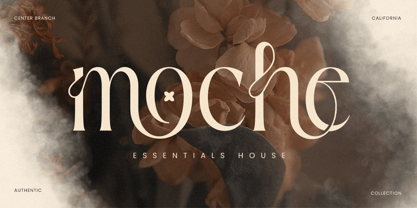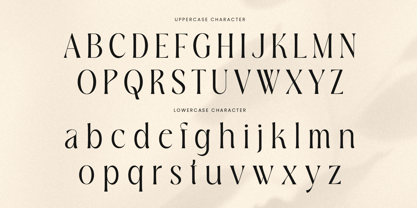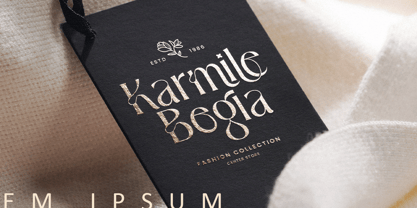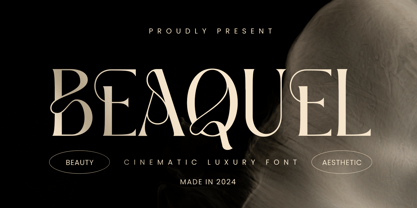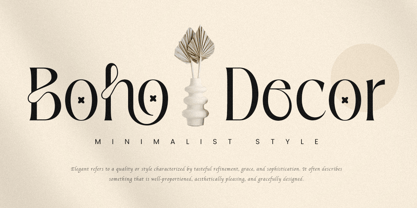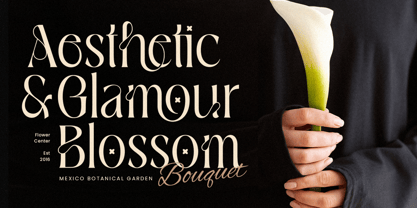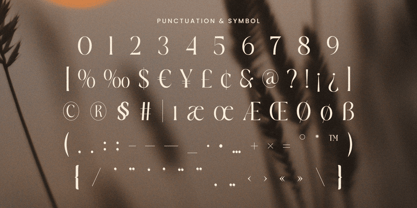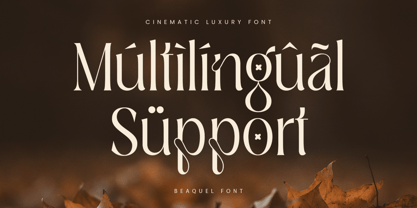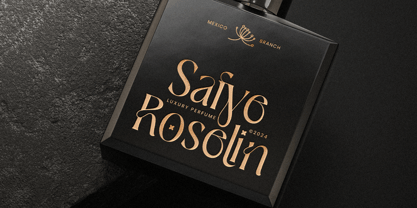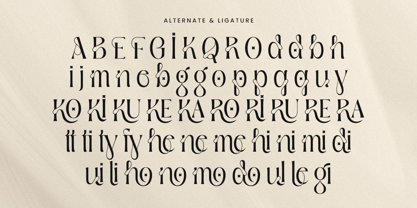
Beaquel
by Sensatype Studio
The Beaquel Font Family was designed by Zamroni Hamzah and published by Sensatype Studio. Beaquel contains 2 styles and family package options. More about this family
Beaquel - Cinematic Luxury Font
Beaquel is a cinematic luxury font designed to bring sophistication and elegance to your designs. Perfectly suited for high-end branding, editorial layouts, and upscale product packaging, Beaquel's refined letterforms exude timeless style. Inspired by classic cinematic visuals and premium aesthetics, this font creates a unique aura, captivating viewers with its graceful yet powerful presence.
Every character in Beaquel is carefully crafted to balance elegance with a touch of boldness, making it ideal for brands aiming for a luxurious appeal. Whether it's for a fashion logo, magazine headline, or refined advertising campaign, Beaquel adapts beautifully, enhancing each design with a touch of glamour.
Use Beaquel to give your projects a distinctive, memorable look that resonates with audiences who appreciate sophistication and cinematic style. This font is made for those who want to make a lasting impression with their designs.
Beaquel Cinematic Luxury Font Features:
• Luxury Ligature & Alternate Characters Ready
• Punctuation, Number, and Symbol
• Uppercase and Lowercase
• Opentype Features
Multilingual Characters available for: Afrikaans, Albanian, Asu, Basque, Bemba, Bena, Breton, Chiga, Cornish, Dutch, English, Estonian, Filipino, Finnish, Friulian, Galician, German, Gusii, Indonesian, Irish, Italian, Kabuverdianu, Kalenjin, Kinyarwanda, Luo, Luxembourgish, Luyia, Machame, Makhuwa-Meetto, Makonde, Malagasy, Manx, Morisyen, North Ndebele, Nyankole, Oromo, Portuguese, Quechua, Romansh, Rombo, Rundi, Rwa, Samburu, Sango, Sangu, Scottish Gaelic, Sena, Shambala, Shona, Soga, Somali, Spanish, Swahili, Swedish, Swiss.